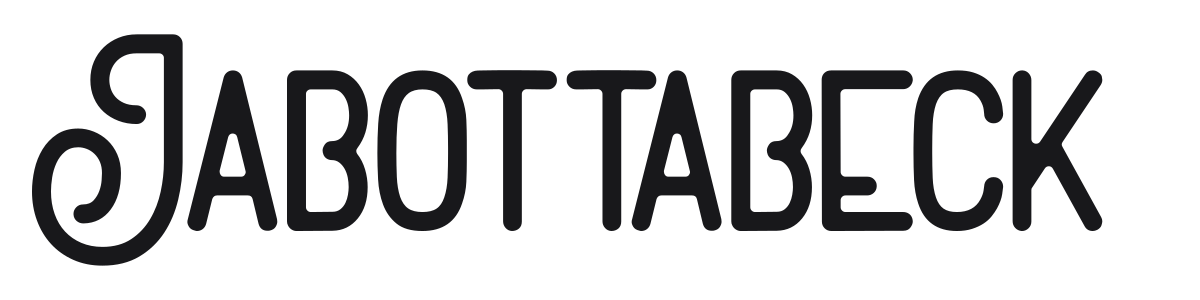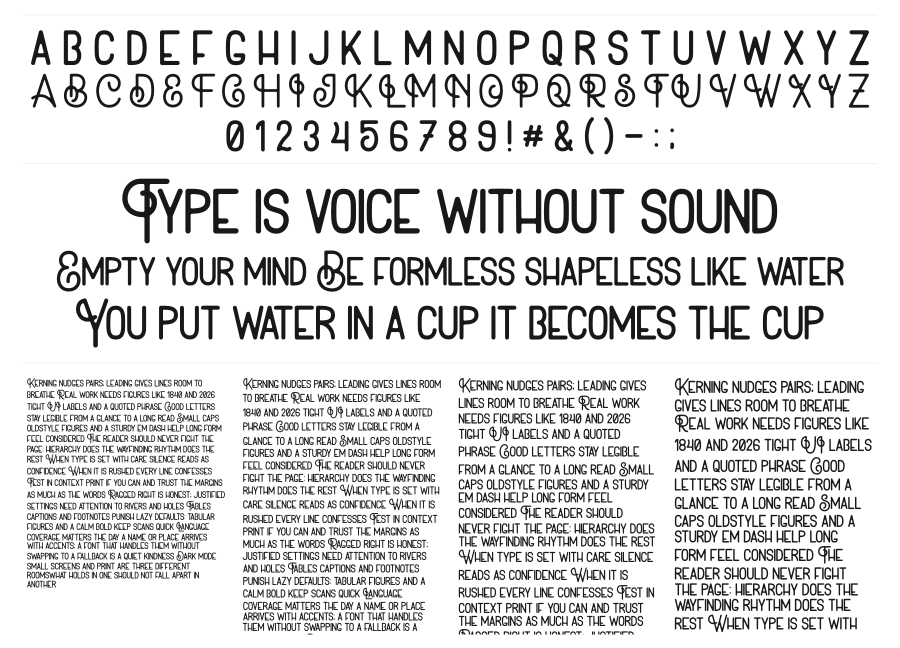
Jabottabeck
Jabottabeck is a condensed bold display sans with a hand-influenced irregularity that sets it apart from polished geometric designs. The slightly uneven geometry and flat terminals give it a warm, vernacular quality reminiscent of mid-century hand-painted signs. It carries personality without trying too hard.